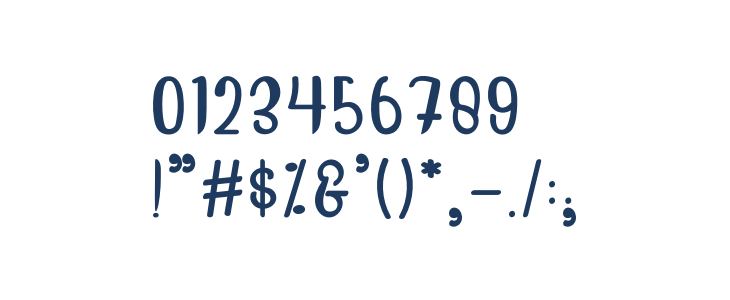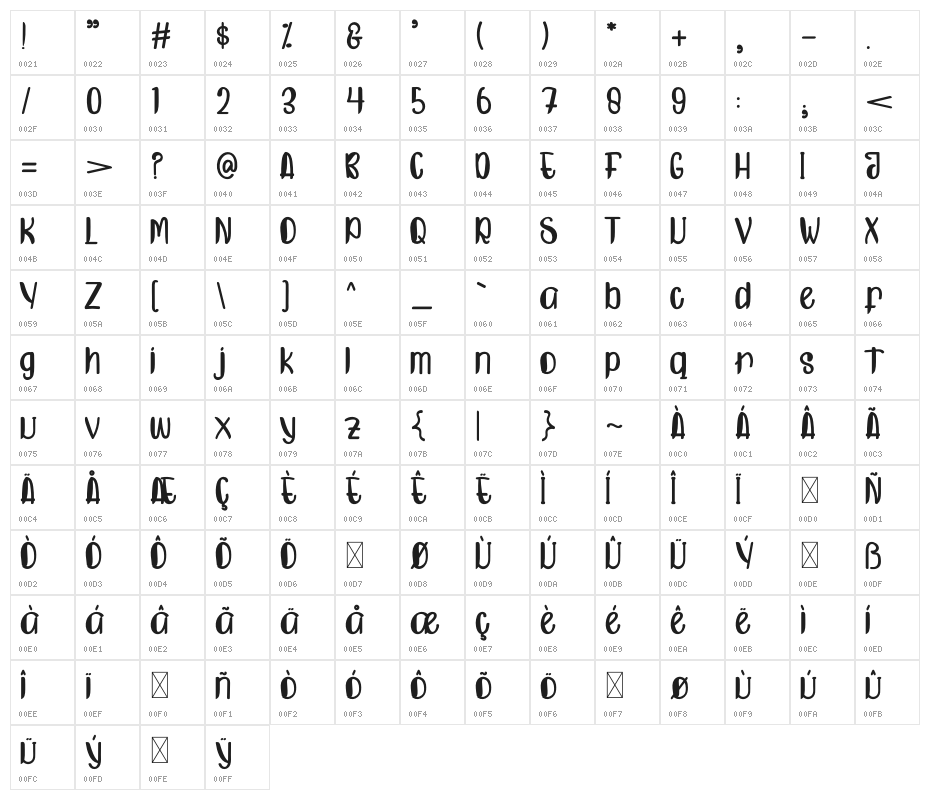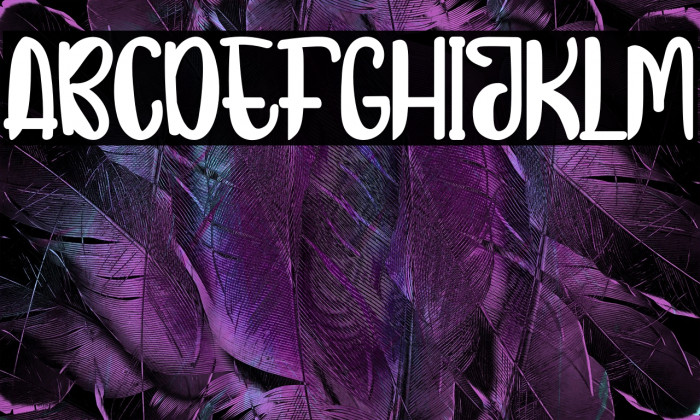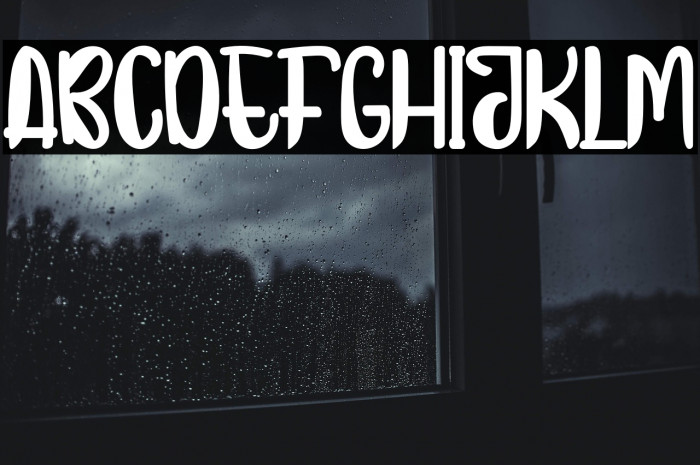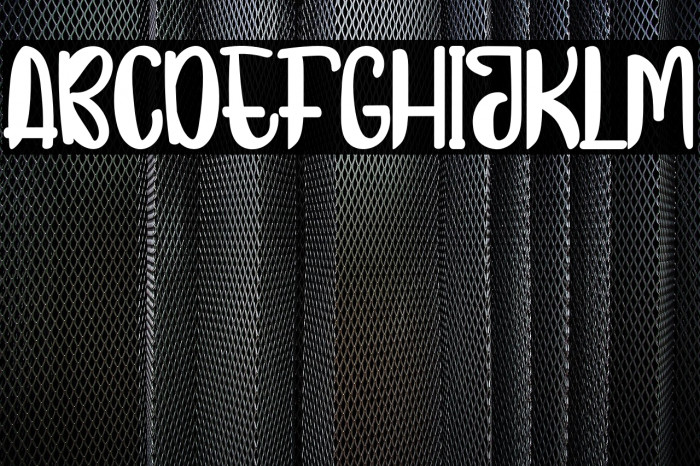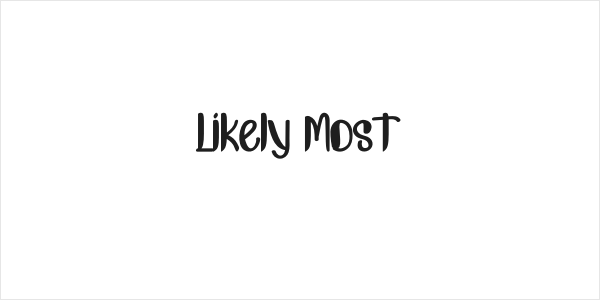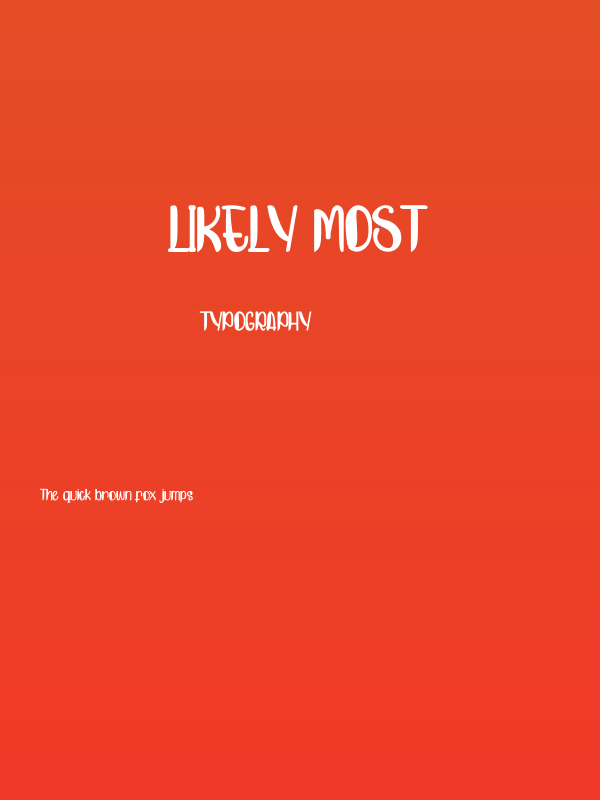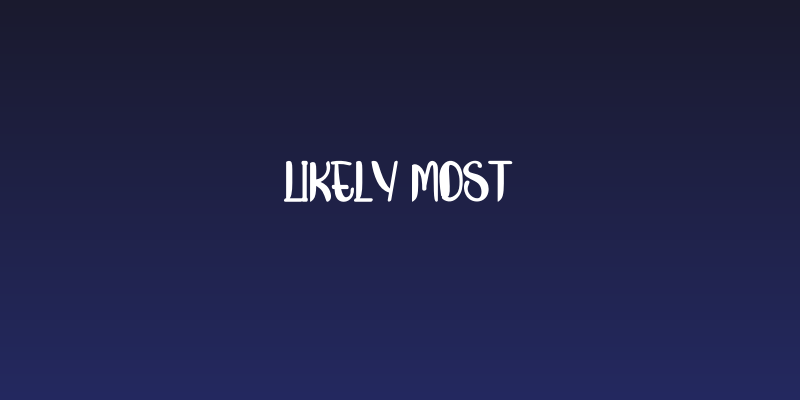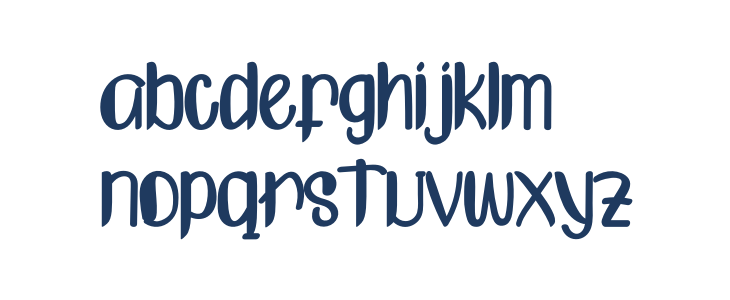
Likely Most Font
Likely Most Description
This font features a playful and bold style with a handwritten appearance. The letters are rounded and slightly elongated, giving them a whimsical and friendly look. The uppercase and lowercase letters maintain a consistent style, with smooth curves and a flowing design. The numbers and special characters complement the alphabet with the same playful aesthetic. This font is ideal for projects that require a fun and approachable feel, such as children's books, greeting cards, or playful branding.
| Use Case | Headlines, Logos, Casual Invitations |
| Proposed Projects | Ideal for children's books, greeting cards, playful branding, and casual invitations. |